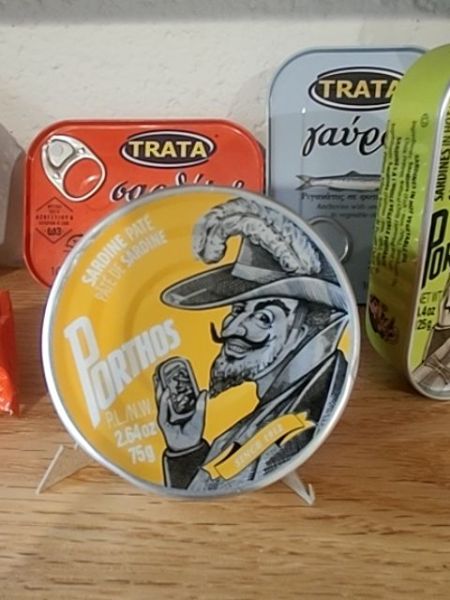
Porthos Sardine Pate
A sardine pate used as a spread on bread or crackers, often enjoyed as a snack or appetizer.
Portugal
The typography on the tin features a bold, sans-serif font for the brand name 'Porthos,' creating a strong visual impact. The use of all caps adds to the sense of authority and tradition, while the slight curvature in the layout of the text complements the round shape of the can. The playful illustration style contrasts with the clean, modernized typography.
The packaging features a round tin with a vibrant yellow and gray color scheme. A stylized illustration of a man in a feathered hat holding a can of sardines adds a playful and vintage touch. The design draws attention with its bold colors and graphical elements.
- Porthos is known for premium sardine products.
- The brand often uses traditional methods to produce its pate.
- The sardine pate is a versatile ingredient in various culinary applications.